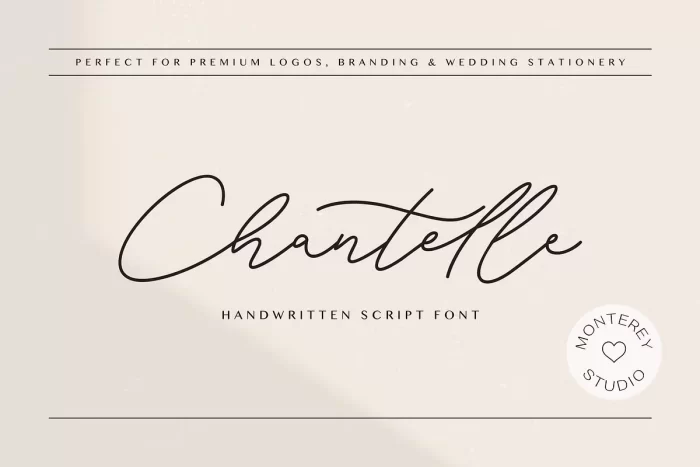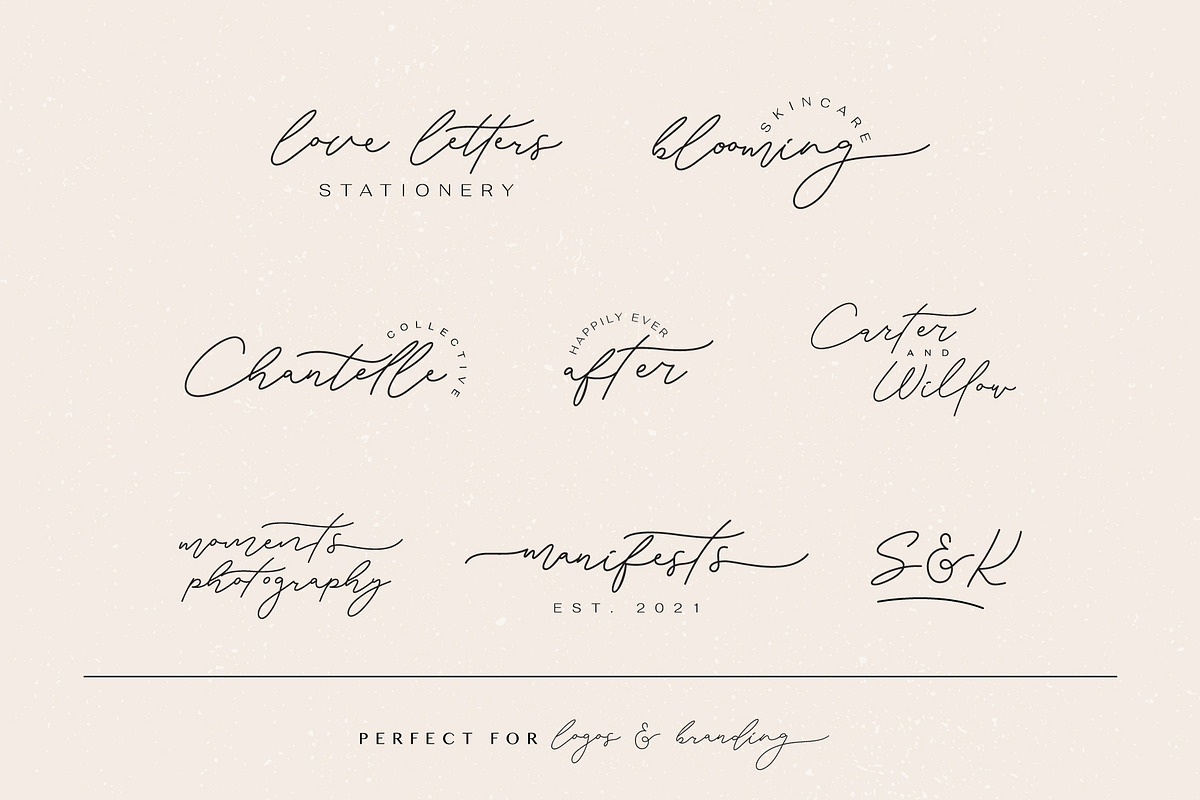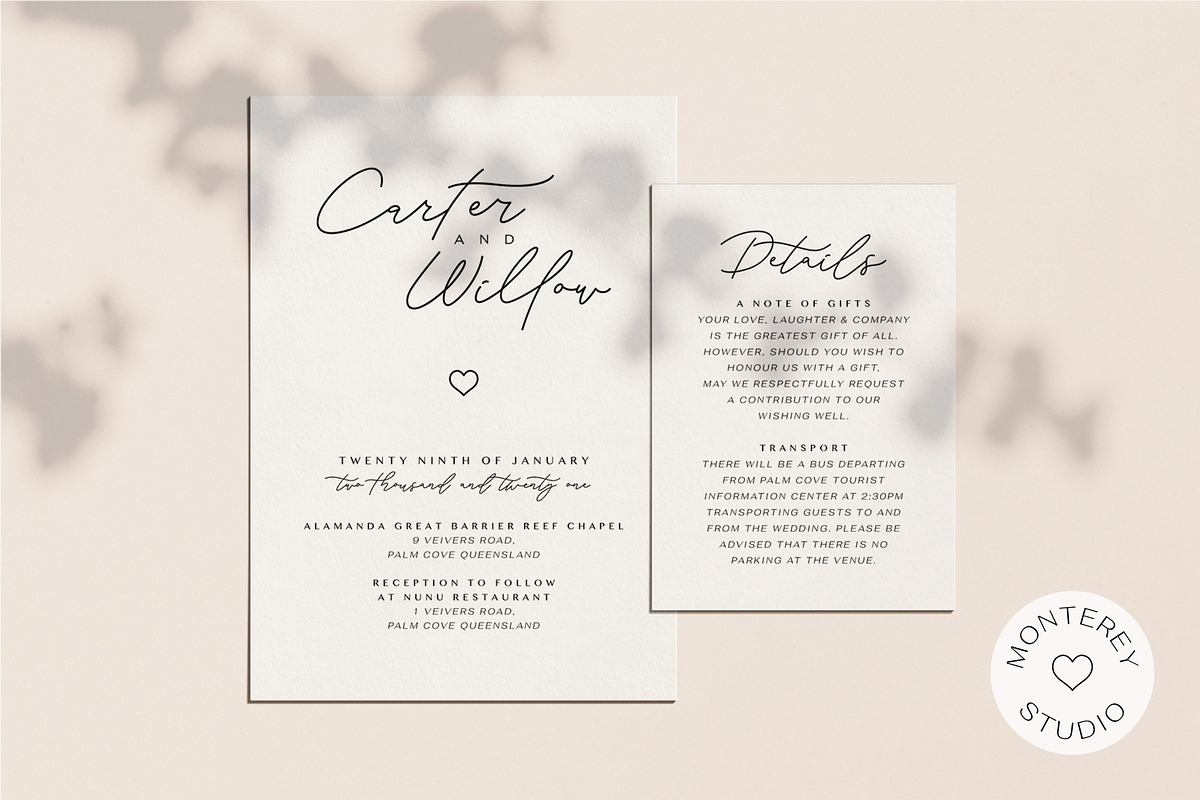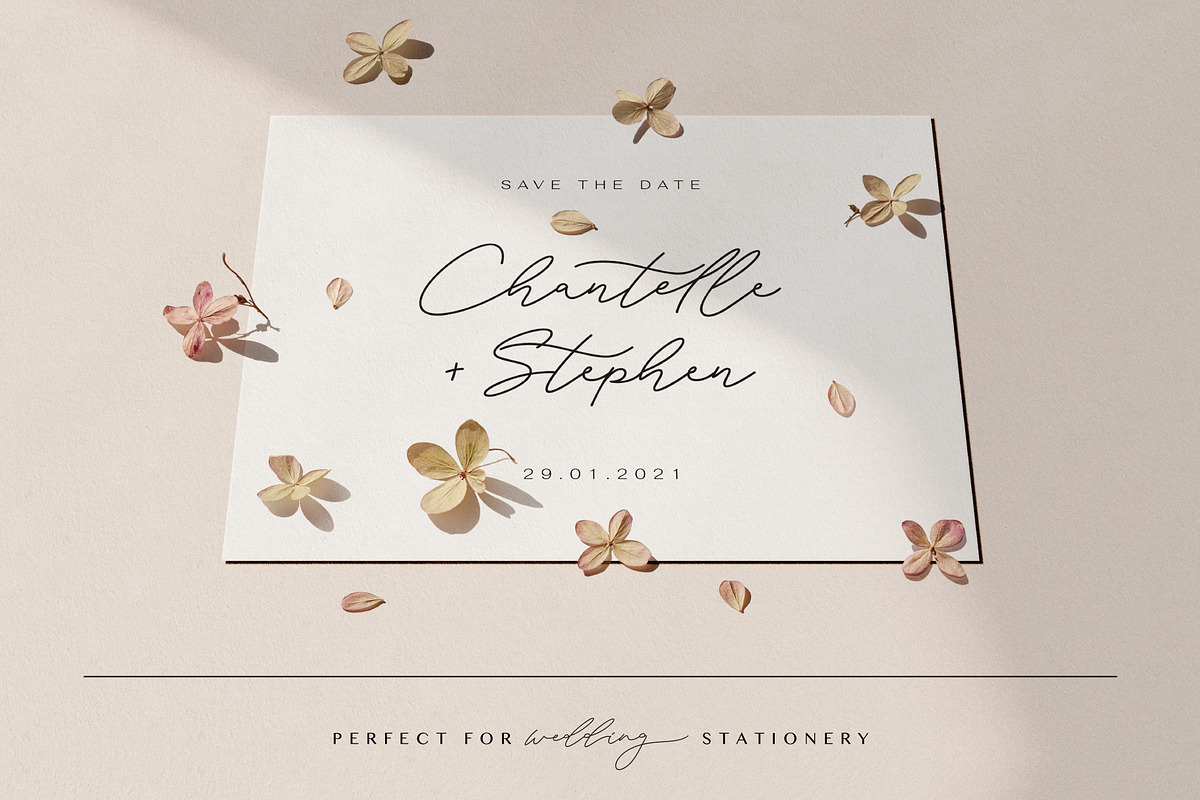
Chantelle Font
Chantelle is a romantic handwritten script font with lots of personality. Chantelle is the perfect addition to any handwritten font collection.
It is a ligature based script designed to be the perfect font for premium branding & wedding stationery. Including a large selection of Opentype double-letter and triple-letter ligatures to give the script a realistic hand-lettered feel.
Chantelle contains multilingual support with accented characters for international (Western European, Central European and South Eastern European) users.